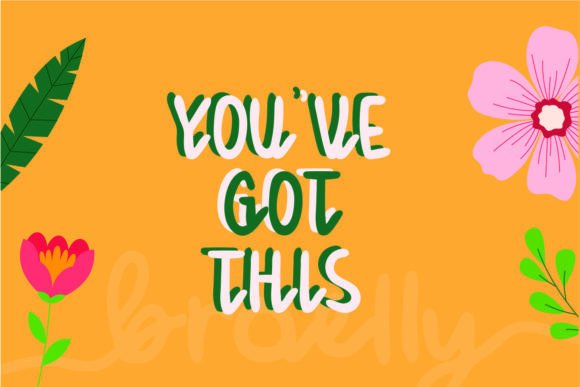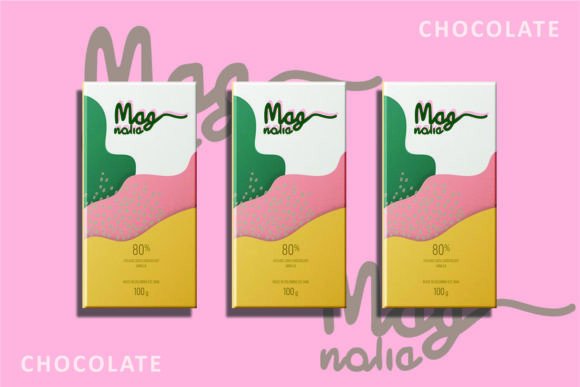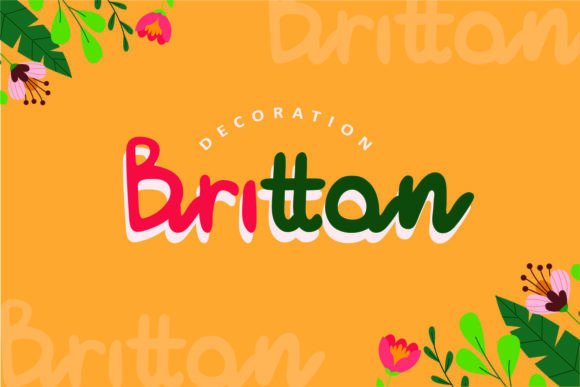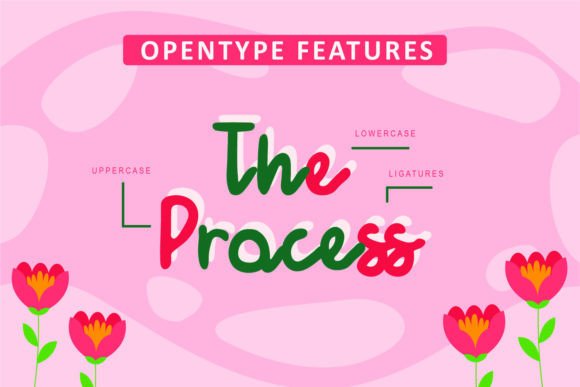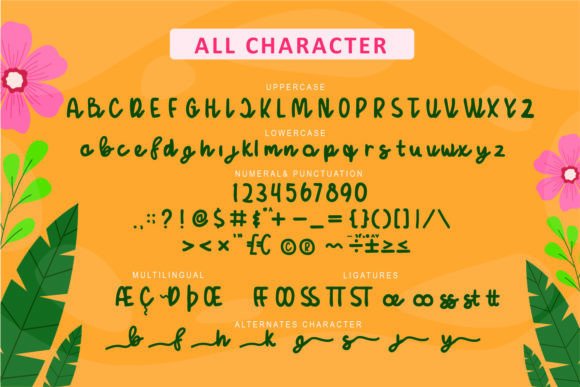
Introducing Broelly Font: Elevate Your Creations with Elegance and Sophistication
In the world of typography, a font can make or break the visual appeal of a design. For crafters, designers, and artists, finding the perfect font that combines style, elegance, and a touch of personality can be a daunting task. However, if you’re looking for a font that embodies boldness, exquisite craftsmanship, and a natural flair, look no further than Broelly Font. In this article, we’ll dive into the world of Broelly, exploring its unique features, and how it can elevate your creations to new heights.
What is Broelly Font?
Broelly Font is a bold and exquisite handwritten font that exudes style, grace, and a flowing elegance. Its unique design makes it perfect for a wide range of creative projects, from branding and advertising to crafting and personal stationery. With its robust and confident strokes, Broelly Font adds a touch of sophistication to any design, making it an excellent choice for designers and crafters looking to make a statement.
Key Features of Broelly Font
- Bold and Exquisite: Broelly Font boasts a bold and exquisite design that commands attention. Its confident strokes and elegant flow make it perfect for creating stunning visual content.
- Handwritten with Love: The font’s handwritten nature gives it a personal touch, making it ideal for projects that require a human and natural feel.
- Stylish and Graceful: Broelly Font’s stylish and graceful design ensures that your creations look polished and refined.
- Flowing and Natural: The font’s flowing strokes and natural feel make it perfect for creating organic and earthy designs.
Why Choose Broelly Font?
With so many fonts available, why choose Broelly Font? Here are a few compelling reasons:
- Elevate Your Designs: Broelly Font has the power to elevate your designs from ordinary to extraordinary. Its bold and exquisite design ensures that your creations stand out from the crowd.
- Versatility: The font’s versatility makes it suitable for a wide range of projects, from digital designs to print materials.
- Easy to Read: Despite its bold nature, Broelly Font remains easy to read, making it perfect for body text and headlines.
- Unique and Memorable: Broelly Font’s unique design ensures that your creations are memorable and leave a lasting impression.
How to Use Broelly Font in Your Designs
Using Broelly Font in your designs is easy. Here are a few tips to get you started:
- Pair it with Other Fonts: Experiment with pairing Broelly Font with other fonts to create stunning contrast and visual interest.
- Use it for Headlines and Titles: Broelly Font’s bold nature makes it perfect for headlines and titles. Use it to create attention-grabbing headlines that draw the reader in.
- Add it to Your Branding: Use Broelly Font to create a consistent brand identity. Its unique design ensures that your branding stands out from the competition.
In conclusion, Broelly Font is a bold and exquisite handwritten font that can elevate your creations to new heights. Its stylish, graceful, and flowing design makes it perfect for a wide range of creative projects. With its versatility, ease of use, and unique design, Broelly Font is an excellent choice for designers and crafters looking to add a touch of elegance and sophistication to their work. So why wait? Discover the power of Broelly Font and take your designs to the next level.
Whether you’re a seasoned designer or a crafter looking for a unique font to add to your collection, Broelly Font is sure to impress. Its bold and exquisite design ensures that your creations stand out from the crowd, while its natural and flowing strokes keep them grounded and relatable. So go ahead, explore the world of Broelly Font, and experience the difference it can make in your designs.